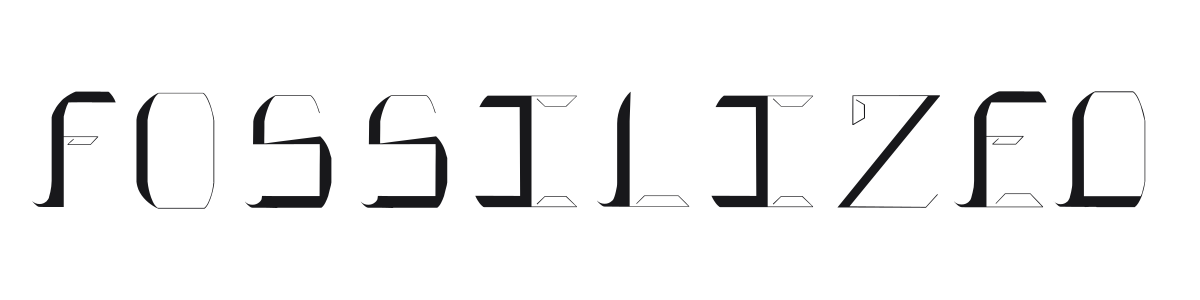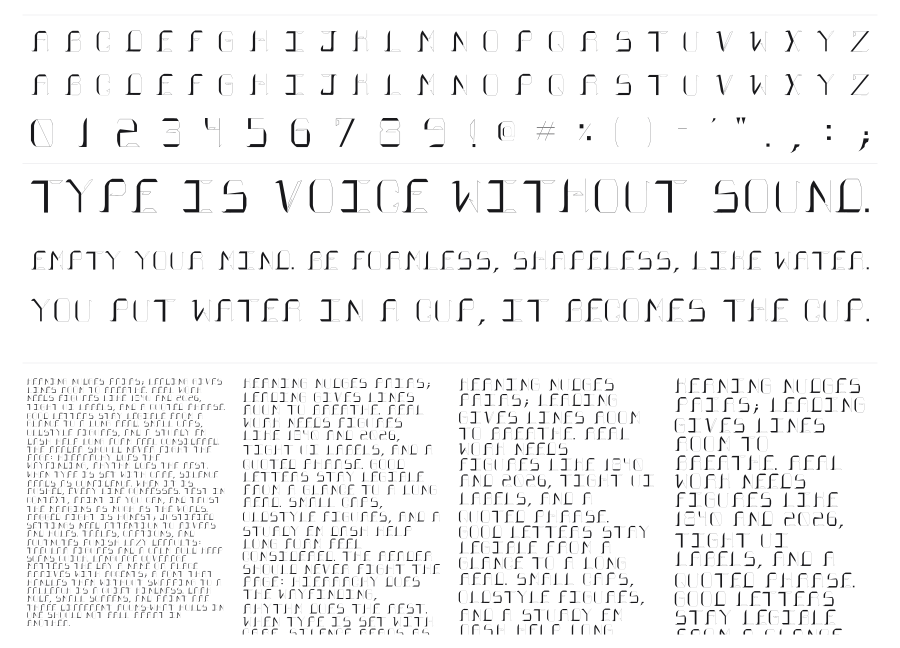
Fossilized
by Amber Smith
Fossilized is a hairline outline display font built from near-weightless strokes that give each character a skeletal, translucent quality. The condensed geometric construction recalls Art Deco architectural lettering, but the extreme thinness pushes it into something more fragile and otherworldly. Best used large, where the delicate structure can breathe.